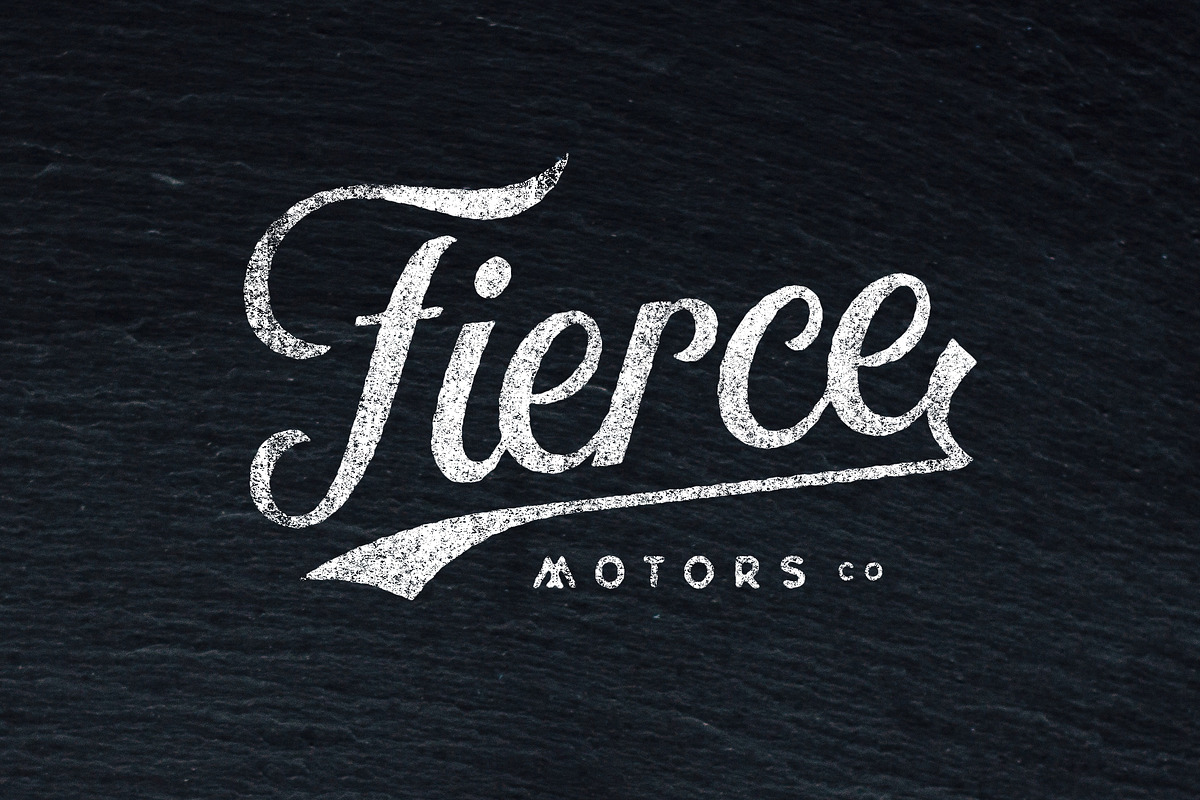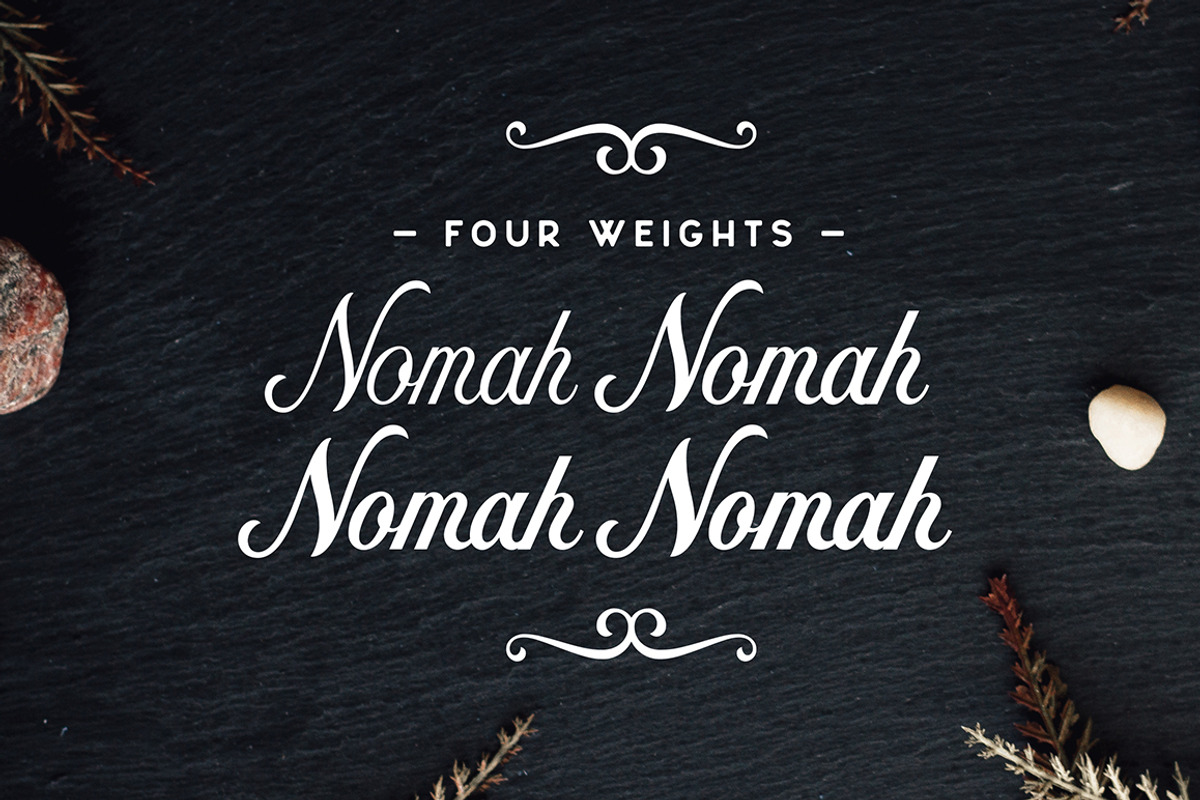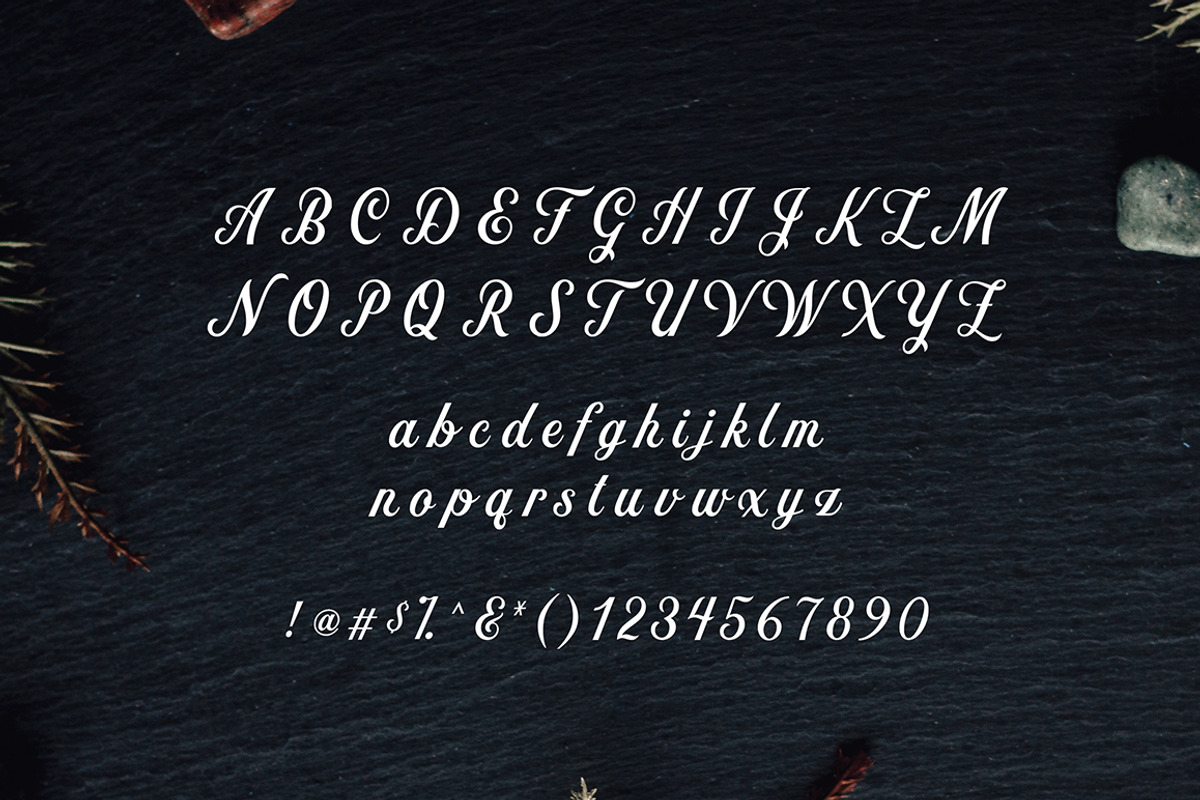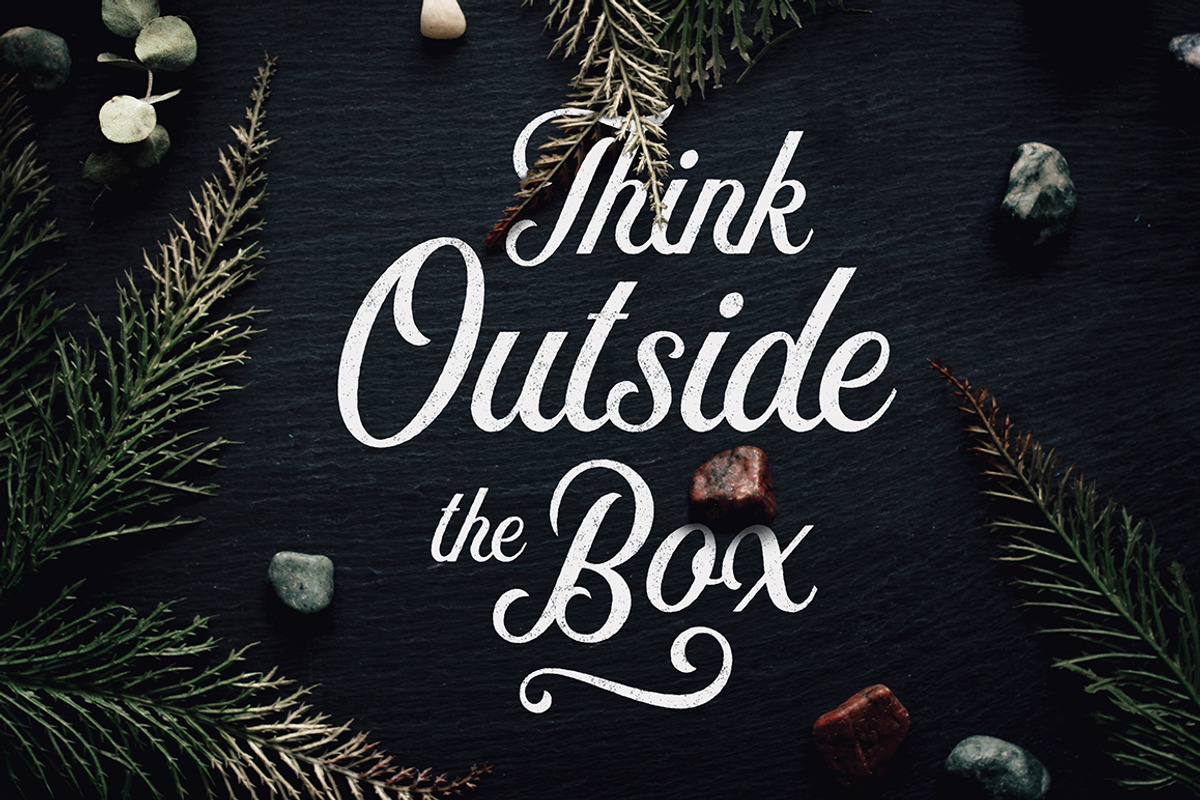
Nomah | A Script Typeface + Bonus
Nomah | A Script Typeface + Bonus by Nicolas Fredrickson is a font selected for branding, posters, packaging, typography.
- Use Nomah to add energy to your logo, package design, shirts, invitations, and so much more.
- This typeface includes what a lot of other ones don't.
- This typeface includes European characters.
- Additional glyphs are included for select letters for use on the end of words.
- Use Nomah to add energy to your logo, package design, shirts, invitations, and so much more.
- This typeface includes what a lot of other ones don't.
- This typeface includes European characters.
- Additional glyphs are included for select letters for use on the end of words.
- There are 4 styles ranging from light to bold, resulting in over 800 characters, including select ligatures and flourishes.
- This typeface includes European characters.
- Nomah Script Light
- Nomah Script Medium
- Nomah Script Semibold
- Nomah Script Bold
Why Nomah | A Script Typeface + Bonus is worth a look
Nomah | A Script Typeface + Bonus by Nicolas Fredrickson fits naturally into Branding, posters, packaging, typography.